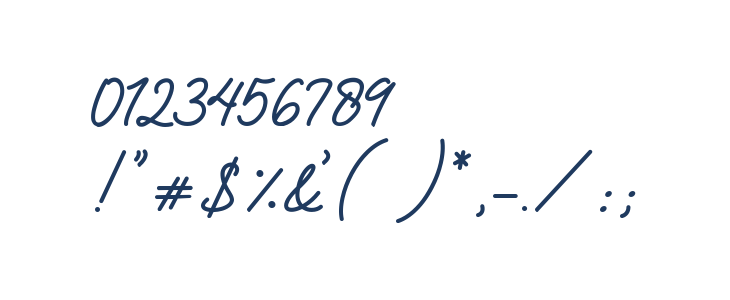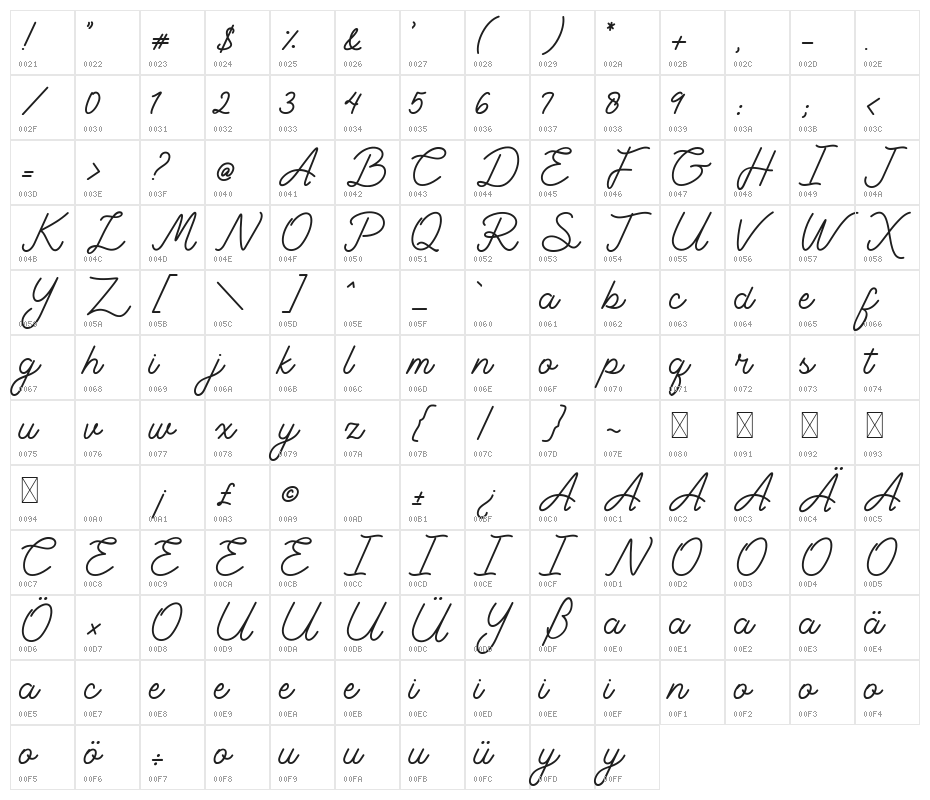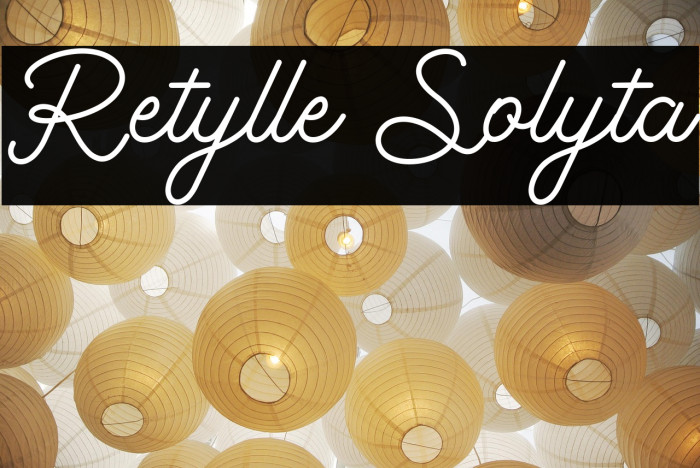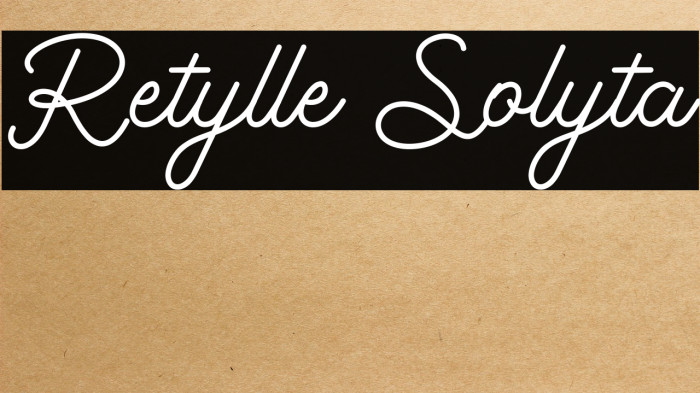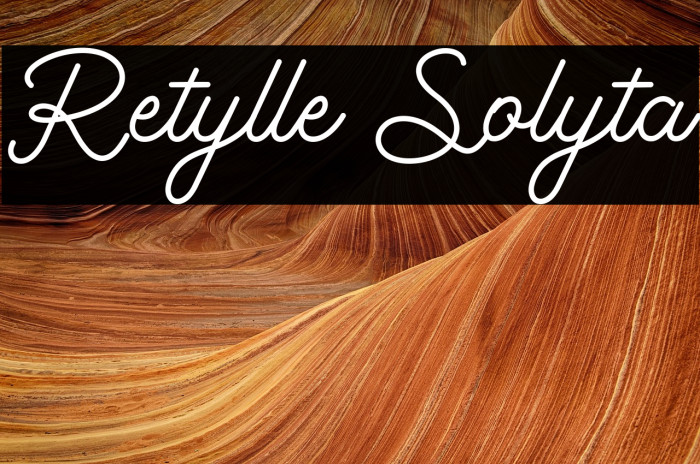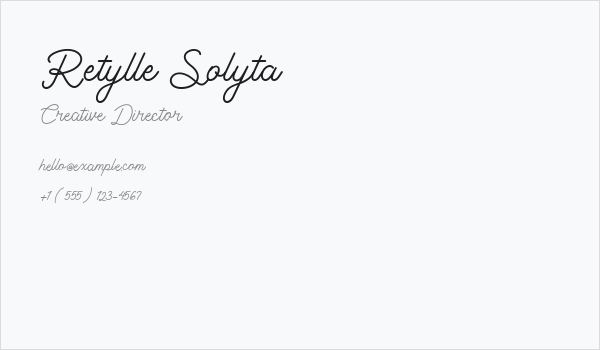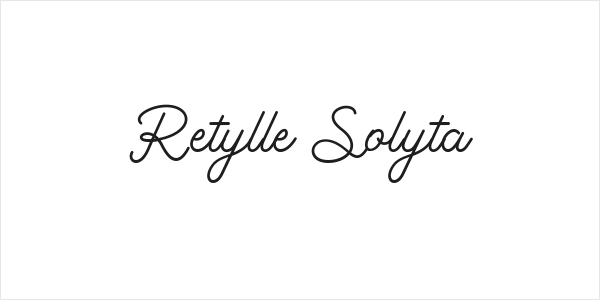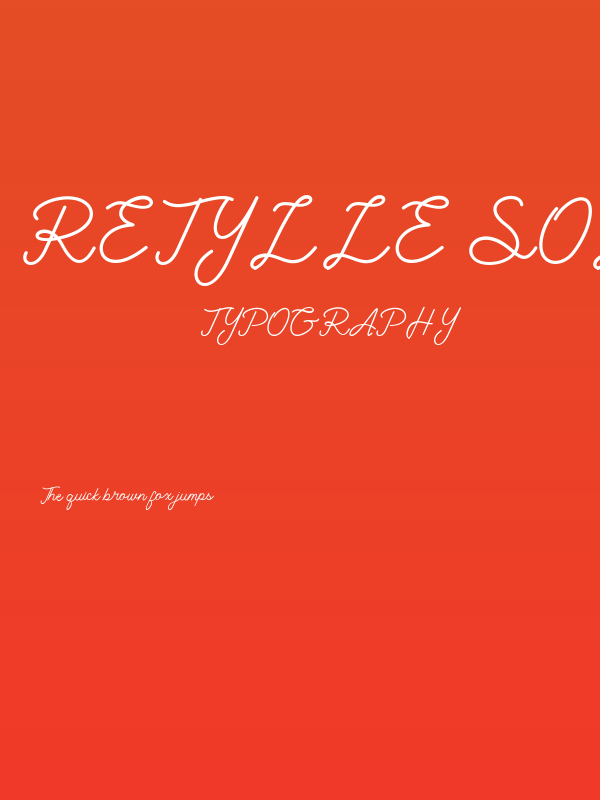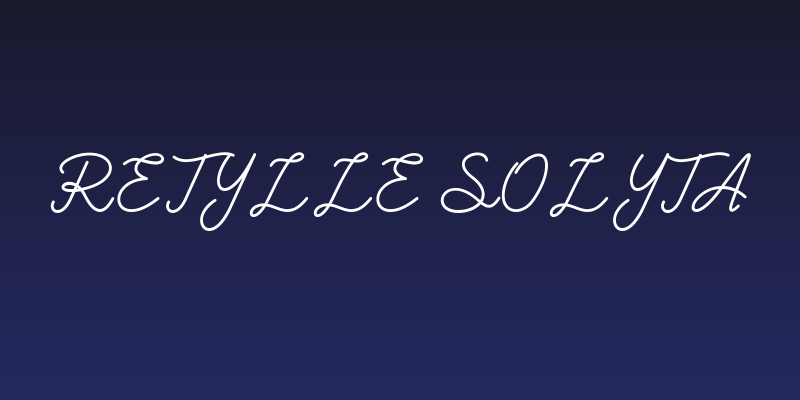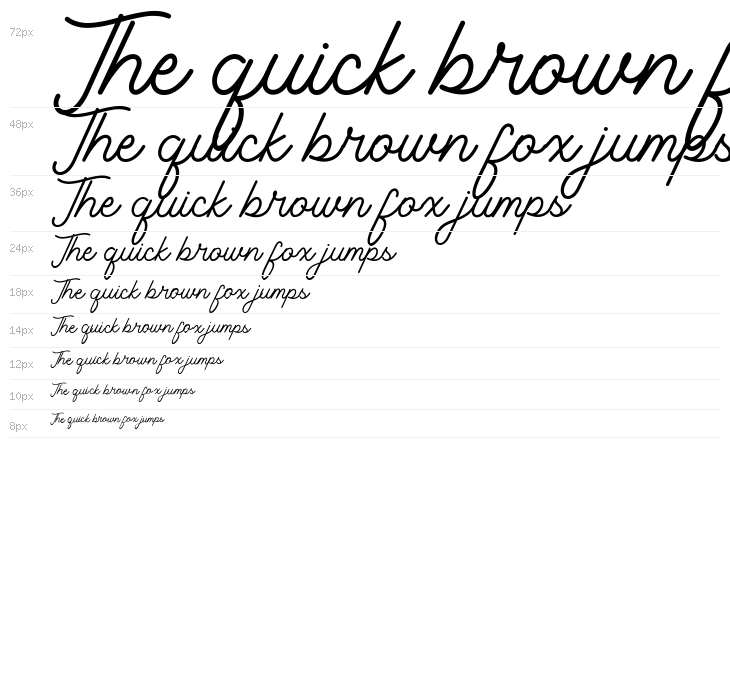
Retylle Solyta Font
Retylle Solyta Description
This font exudes a classic and elegant script style, characterized by its flowing and connected letterforms. The uppercase letters are slightly more formal, with a graceful slant and smooth curves, while the lowercase letters maintain a consistent rhythm and fluidity. The numerals are clear and legible, complementing the overall cursive aesthetic. Special characters are seamlessly integrated, maintaining the script's cohesive look. This font is ideal for projects that require a touch of sophistication and personal flair.
| Proposed Projects | Ideal for wedding invitations, elegant branding, personal stationery, and decorative quotes. |